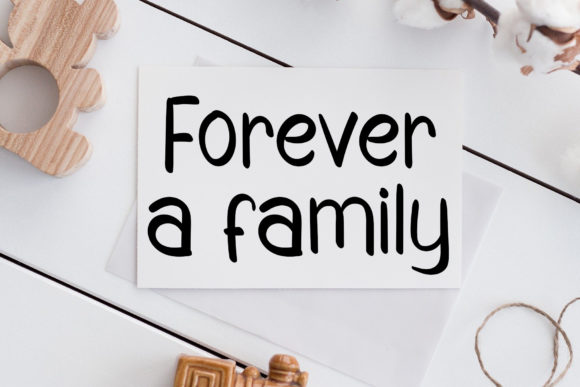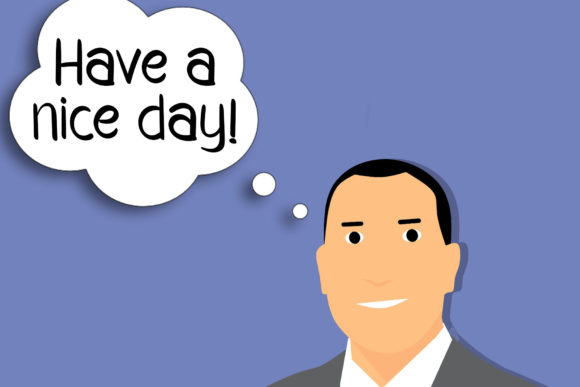
Biscuit Font
db-ku.com - Script & Handwritten -- Biscuit is a sweet and friendly handwritten font. Its natural and unique style makes it incredibly fitting to a large pool of designs. The only limit is your imagination!